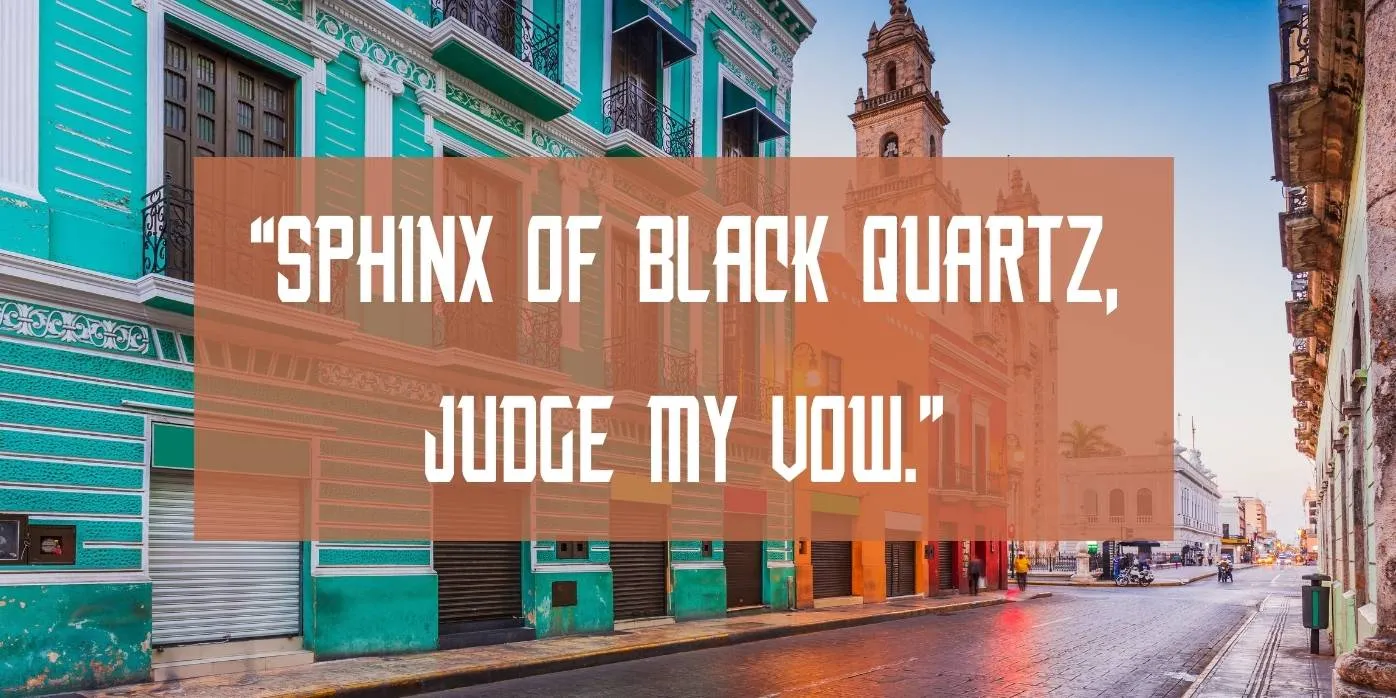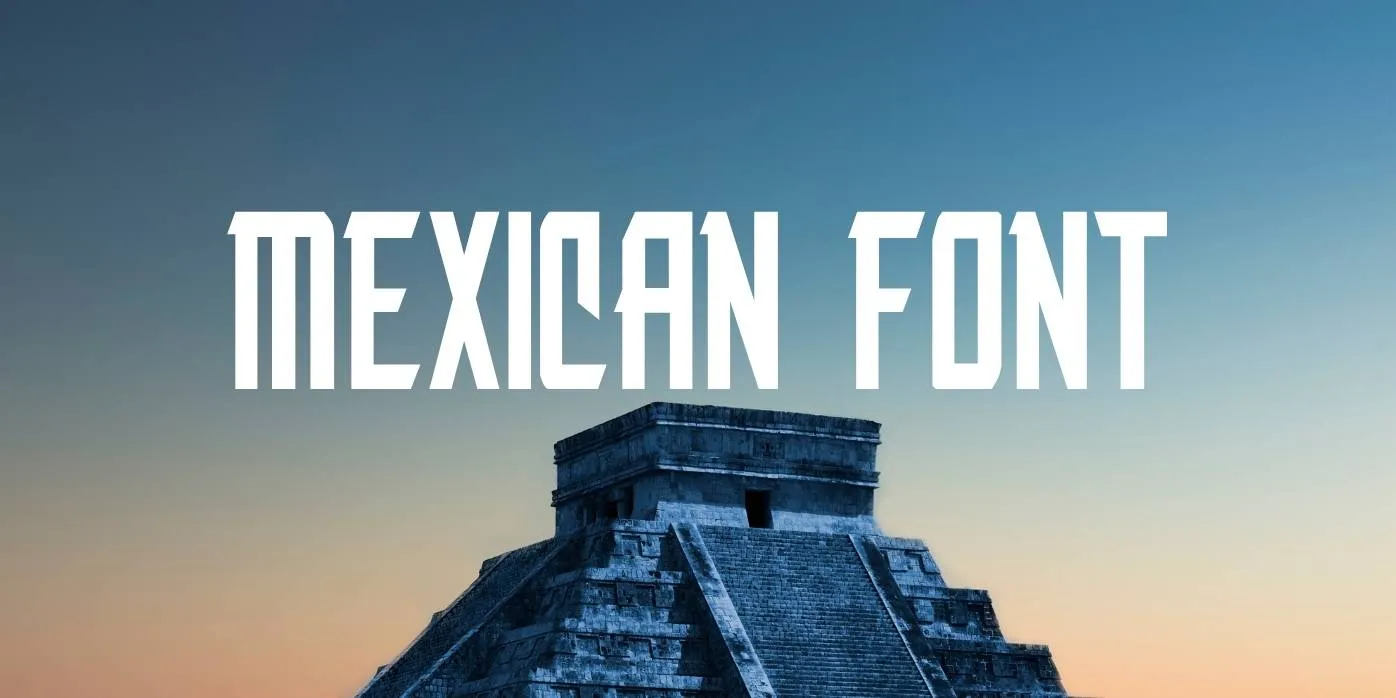
Mexican Font
We are consulting about the most popular and staggering typeface that gives an astonishing design formate known as Mexican Font. this awesome font was designed by a very well-known and intelligent designer Freebies. this font belongs to the display typeface. This attractive fonts family is available in various unique and stylish weights.
All of its unique weights have their own Italics.  It is a popular and flexible typeface that is suitable for different designs. Such as greeting cards, book covers, logos, and many more. This marvelous font comes in more than 62 unique Glyphs. It has a great number of stylish characters.
The most common characters are uppercase, lowercase, numerals, symbols, and many more. This glorious typeface is perfect for Adobe and Google font. Its copy and paste function is very useful. Freshman Font is the most alternative font that helps in different designing projects.
This awesome font has neat and clean textures. The reason for its popularity is its Large X-height and high-quality advanced high-quality lettering. This font family has unique Swashes. A great number of designers used this font family for its popular and perfect styles.